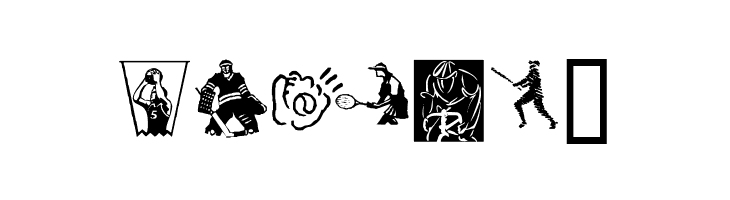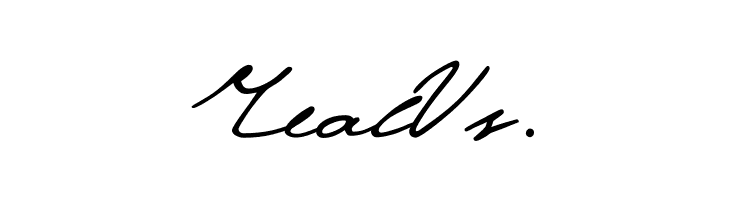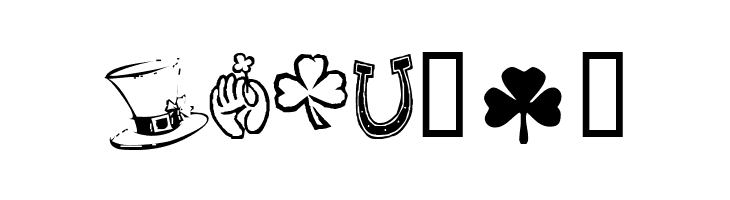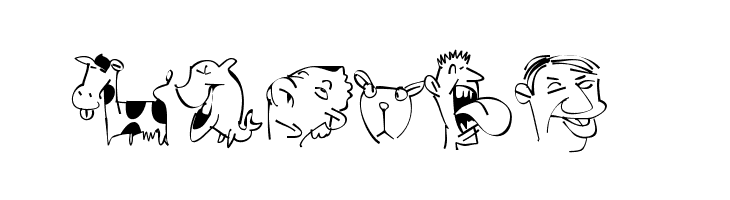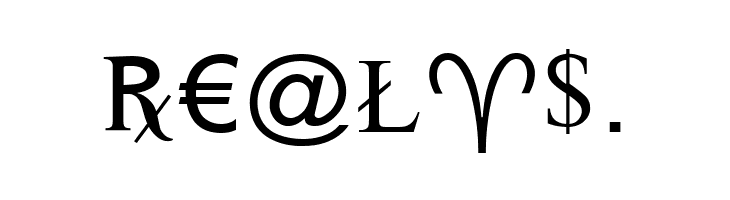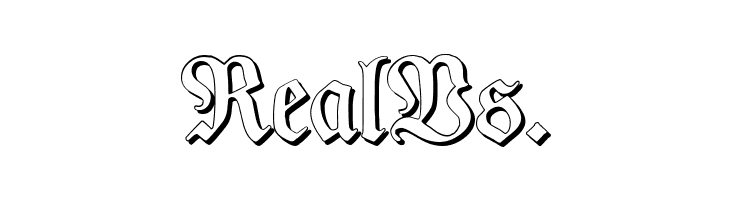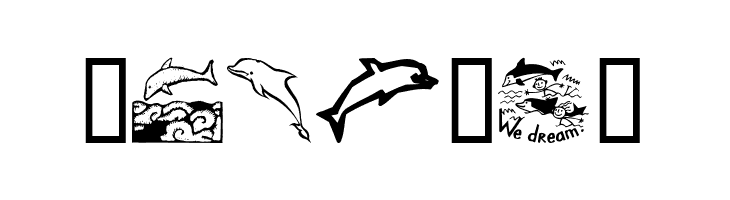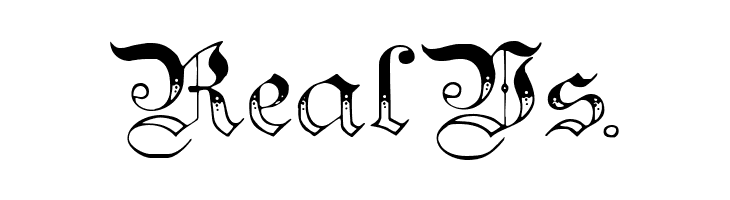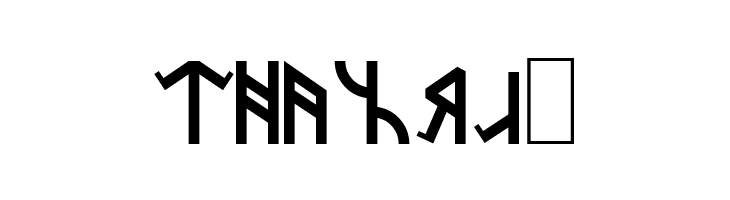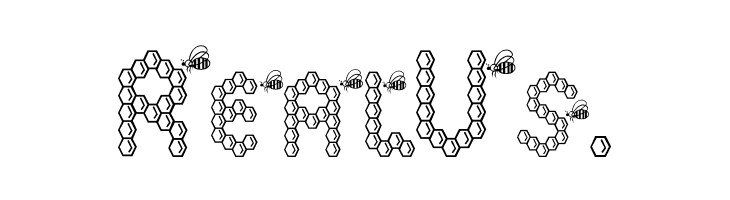
A bold, graffiti-inspired font with dynamic and energetic strokes.
A festive dingbat font with St. Patrick's Day symbols like shamrocks and leprechaun hats.
A bold, eclectic font with cryptic symbols and artistic embellishments.
A decorative blackletter font with shadow effects, offering a classic and dimensional look.
A pictorial font composed of dolphin-themed illustrations.
A Gothic-inspired font with ornate, medieval-style characters.
A decorative dingbat font with Christmas-themed icons in a circular design.
A lively, handwritten font with playful, free-flowing strokes.
A decorative font of hand-drawn cartoon faces, each with unique expressions.
A sleek, modern italic sans-serif font with smooth curves and consistent strokes.
A bold, gothic-style font with intricate, medieval-inspired details.
A playful and whimsical font with bold, wide letters and distinctive serifs.
A decorative, dance-themed font with illustrated dancer figures as characters.
A decorative font with space-themed icons and symbols, perfect for creative projects.
A playful collection of hand-drawn smiley and character illustrations.